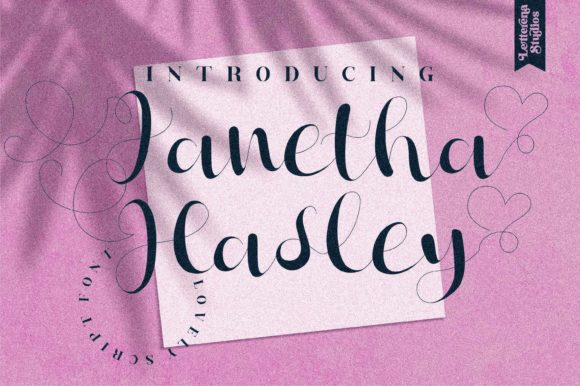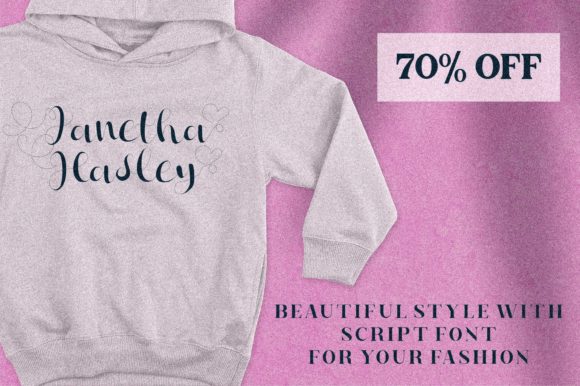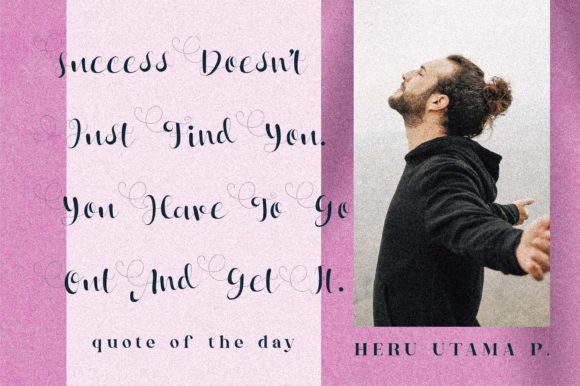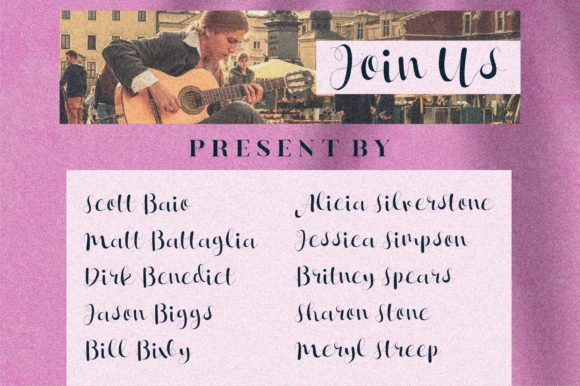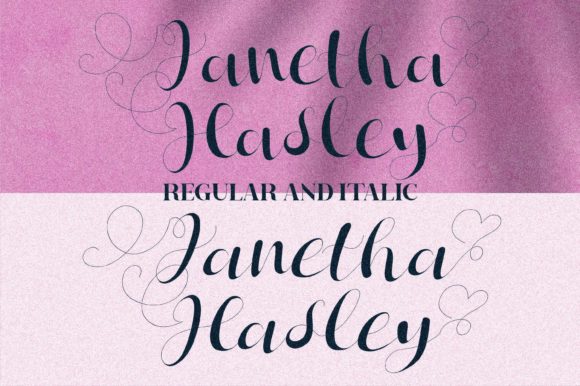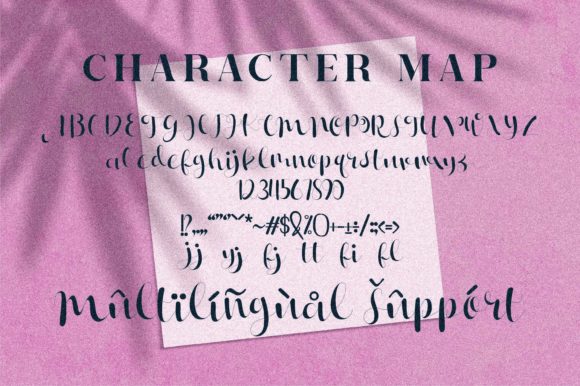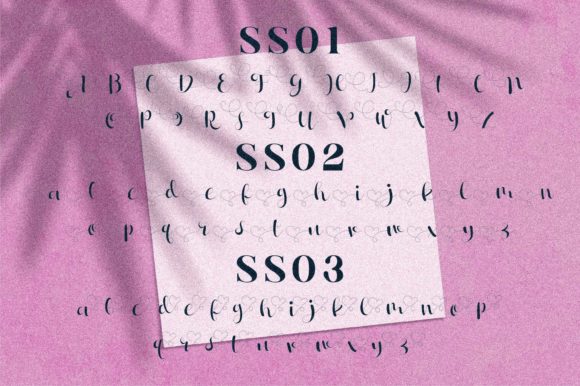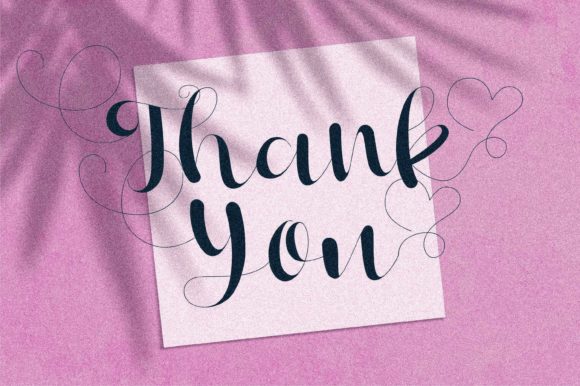
Janetha Hasley Font
About Janetha Hasley Font
Janetha Hasley is a romantic and sweet calligraphy typeface with characters that dance along the baseline. It can be used for various purposes such as logos, wedding invitations, headings, t-shirts, letterhead, signage, labels, news, posters, badges and so much more.